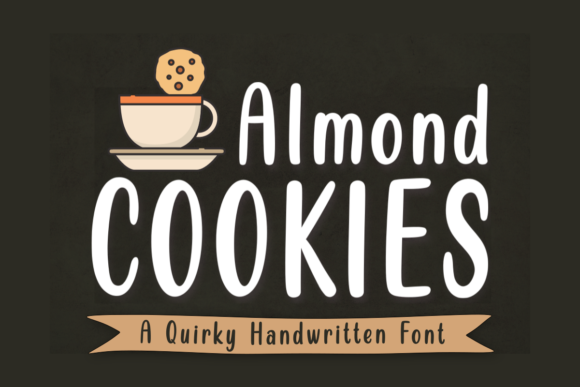
Introducing the Almond Cookies Font, a delightful display font that exudes playfulness and authenticity. It's the perfect choice for any children's activity or school project, bringing a touch of whimsy and fun to your creations.
With its charmingly rounded edges and vibrant colors, Almond Cookies Font is sure to captivate the hearts of children and adults alike. Step into a realm of imagination, where letters dance with joy and colors come alive, inspiring creativity and sparking endless possibilities.
This font is easy-to-read and visually appealing, making it ideal for a variety of applications. You'll find it perfect for designing invitations, greeting cards, posters, and social media graphics. Let Almond Cookies Font add a sprinkle of magic to your projects and leave a lasting impression.
If you're looking for a font that truly captures the essence of childhood, look no further than Almond Cookies Font. Its cheerful and playful nature is sure to bring a smile to your face and make your projects stand out.
**Bonus tip:** Pair Almond Cookies Font with pastel-colored backgrounds and playful illustrations to create a truly enchanting visual experience.